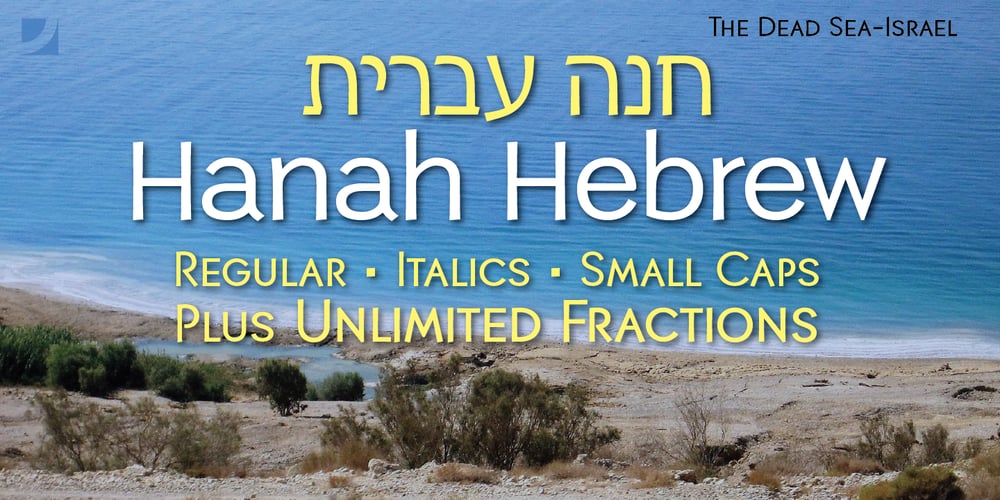
Hanah Hebrew Font Family was designed by John Nahmias and published by Jonahfonts. Hanah Hebrew contains 2 styles and family package options. Hanah Hebrew without cantillation marks, very much used in everyday modern Hebrew. I have added Alternate Stylistics with just some additional cantillation marks which in some cases may be necessary. Use the Character Map (Windows) or Character Viewer (Mac) to access these characters. Unlimited Fractions can be obtained. You may be interested in these Hebrew fonts as well, NEWMARK HEBREW, HEBRON HEBREW,YOM TOV HEBREW, KOMUNIDAD HEBREW SCRIPT and PAGEANTRY HEBREW. Check them out! These fonts require OpenType-aware software.